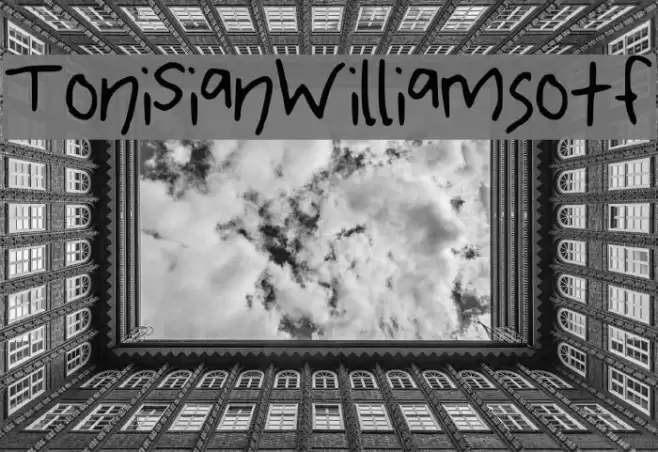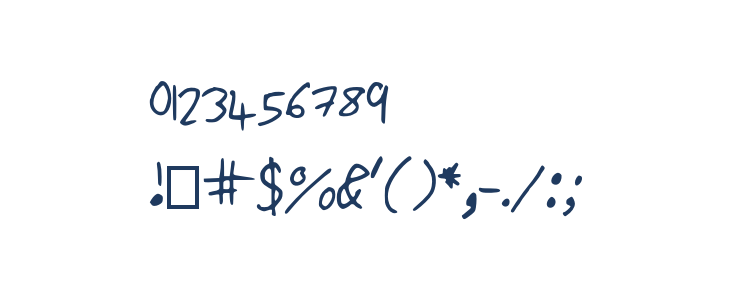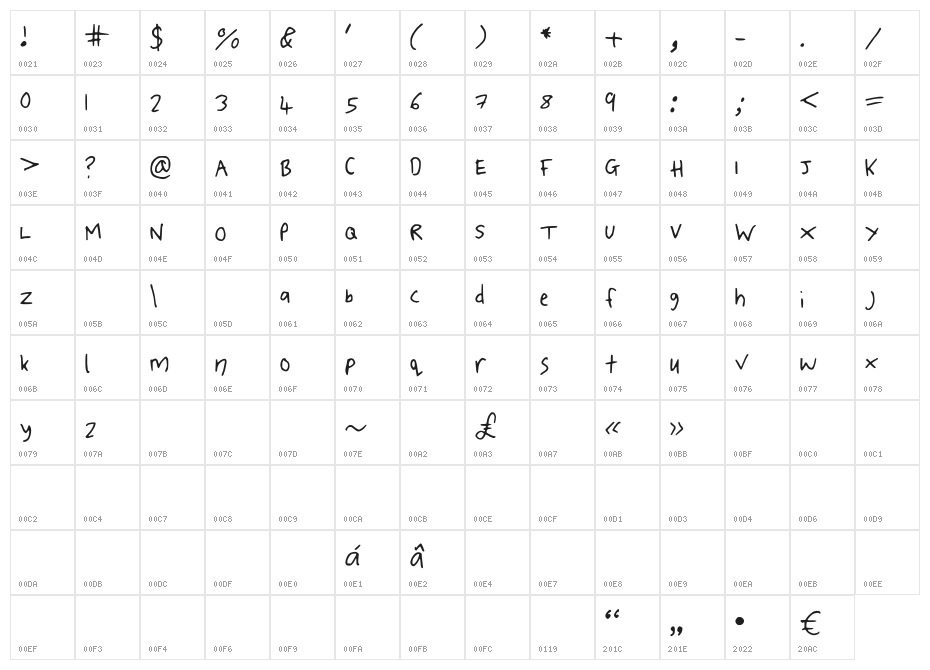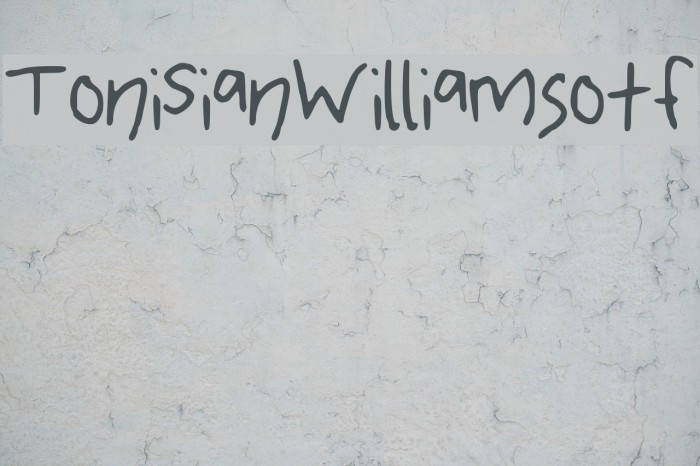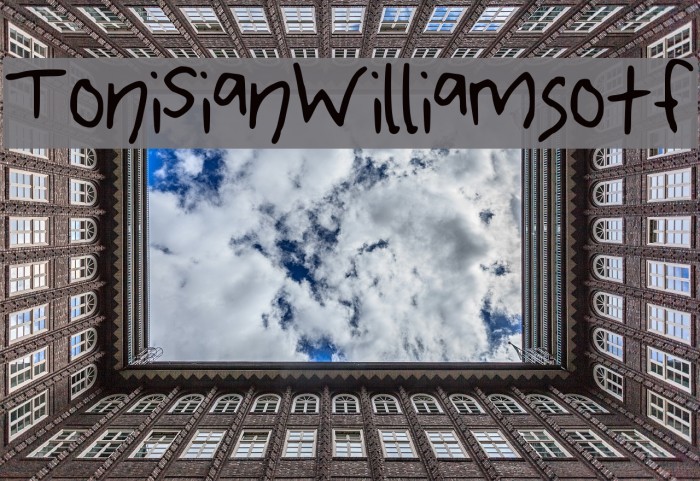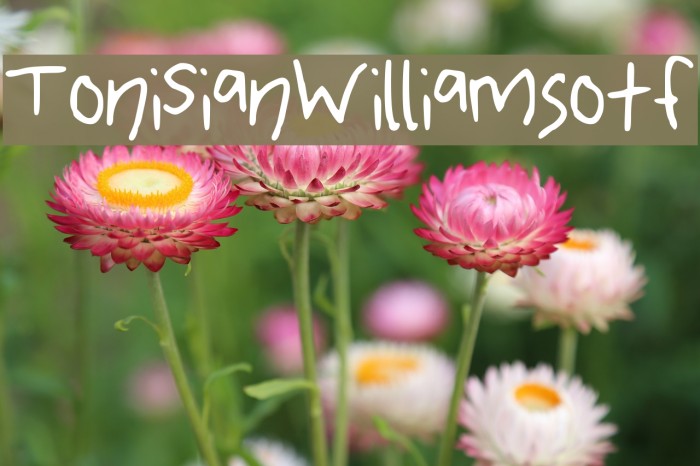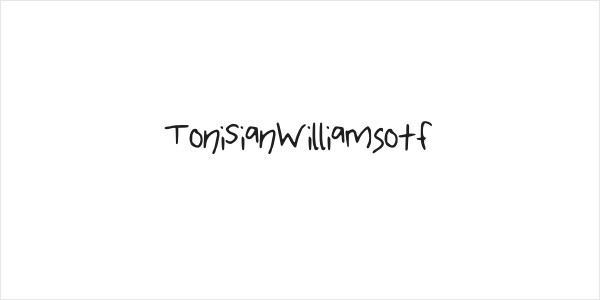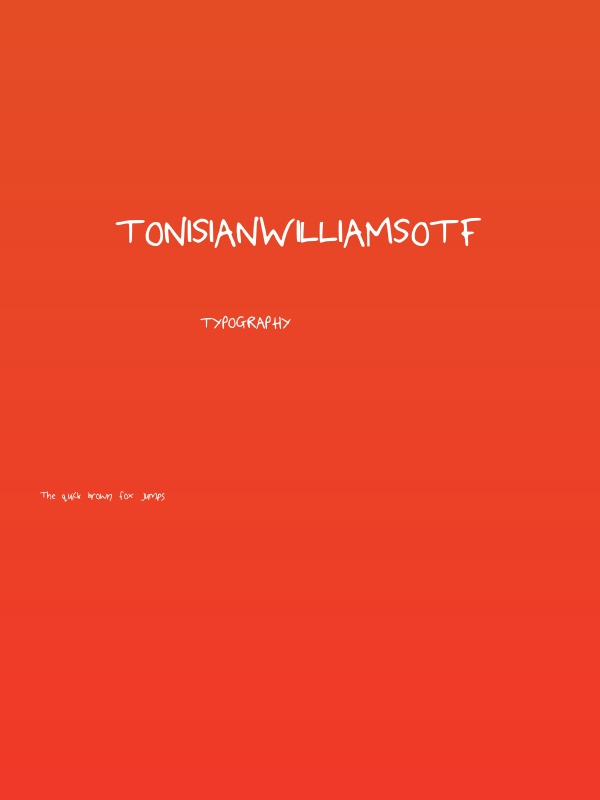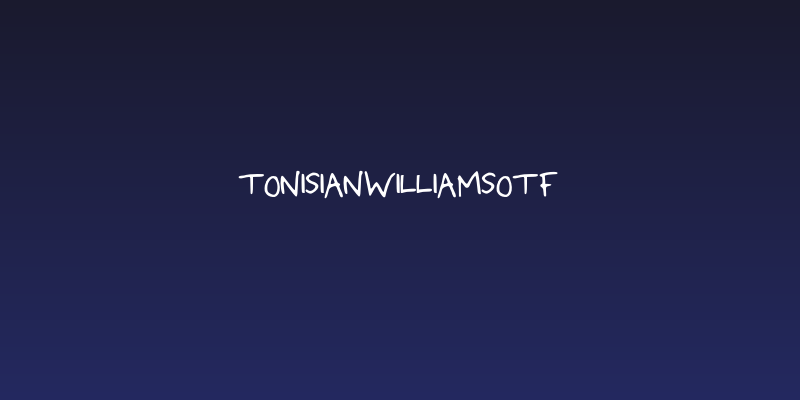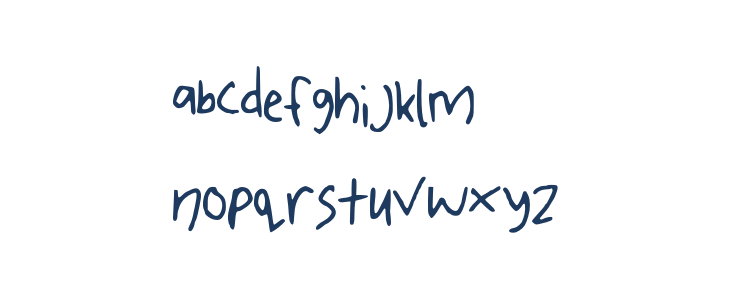
ToniSianWilliamsotf Font
ToniSianWilliamsotf Description
This font features a playful and informal handwritten style, characterized by its irregular strokes and casual appearance. The letters have a natural flow, with slightly varying thicknesses that add to the hand-drawn feel. The uppercase and lowercase letters maintain a consistent style, with rounded edges and a slight slant, giving it a friendly and approachable look. The numerals and special characters follow the same aesthetic, ensuring a cohesive appearance across all glyphs. This font is ideal for projects that require a personal touch or a relaxed vibe.
A playful, informal handwritten font with a casual and friendly appearance from Uncategorized fonts.
- Proposed Projects: Greeting cards, personal blogs, children's books, casual invitations, and social media graphics.
- Overall Style: Casual
- Use Case: Headlines, Logos, Informal text